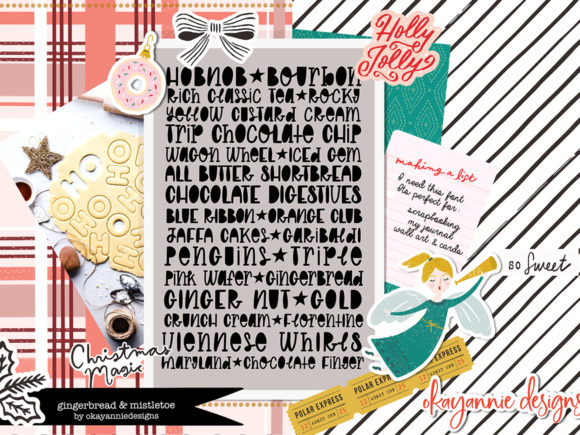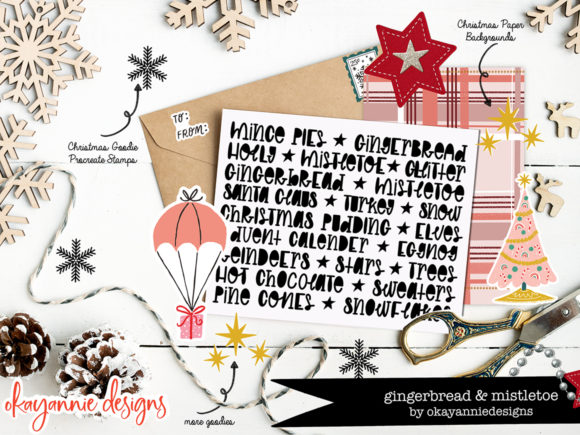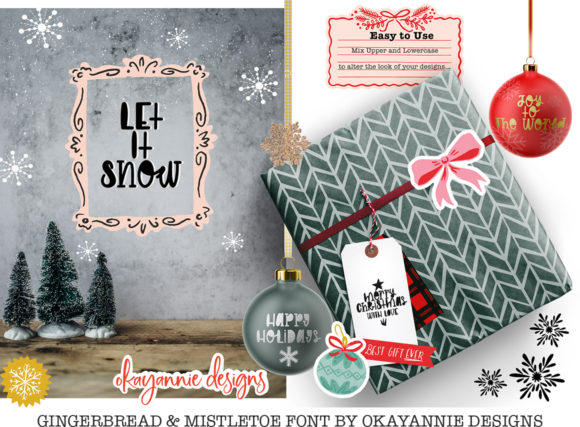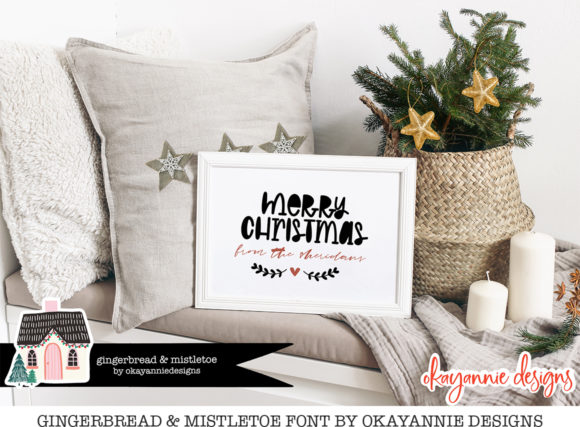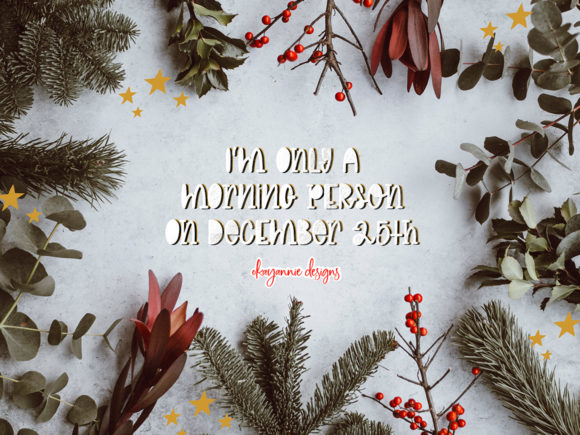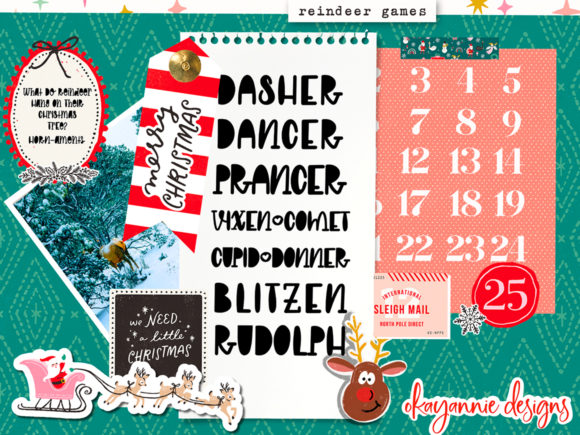
The Magic of GingerBread & Mistletoe Font: A Designer’s Delight
Ah, the joy of stumbling upon the perfect font for your design project! I still remember the time I was working on a festive holiday card for a client, and I just couldn’t find the right font to capture the playful, whimsical spirit of the season. That was until I discovered the charming GingerBread & Mistletoe font. In this article, I’ll share my experience with this delightful font, its features, and how to make the most of it in your designs.
- ✨ Unique and quirky design that’s perfect for festive and playful projects
- 🎉 Excellent for titles, headings, and letterheads
- 👍 Works well for both digital and print designs
While GingerBread & Mistletoe is an amazing font, there are a few things to keep in mind:
- ⚠️ May not be suitable for body text or long paragraphs, as it’s designed primarily for display purposes
- 🤔 Some characters may not be suitable for use in very small font sizes, due to the intricate design
- Experiment with the font’s OpenType features, such as stylistic alternates and glyphs, to add more personality to your design
Rumor has it that the designer of GingerBread & Mistletoe was inspired by the magic of the holiday season and the joy of baking sweet treats. The font’s playful, whimsical design is reminiscent of gingerbread men and festive holiday decorations.
Q: What type of projects is GingerBread & Mistletoe best suited for?
A: GingerBread & Mistletoe is perfect for festive and playful projects, such as holiday cards, party invitations, and crafty designs.
Q: Does GingerBread & Mistletoe support OpenType features?
A: Yes, GingerBread & Mistletoe supports OpenType features, including stylistic alternates and glyphs.